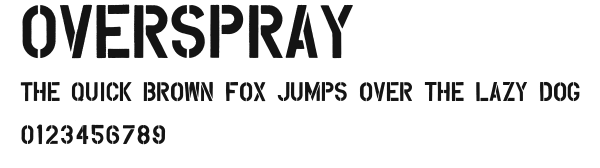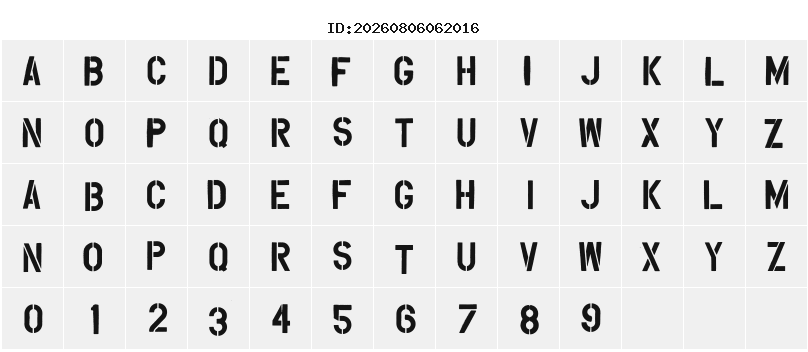
• Font Name: Overspray
• Full Font Name: Overspray
• Designer: Michael Tension
• Manufacturer: Michael Tension
About Overspray.ttf
Overspray.ttf is a modern, elegant sans-serif font designed for ultimate readability and visual harmony. Perfect for branding, headlines, web design, and print materials.